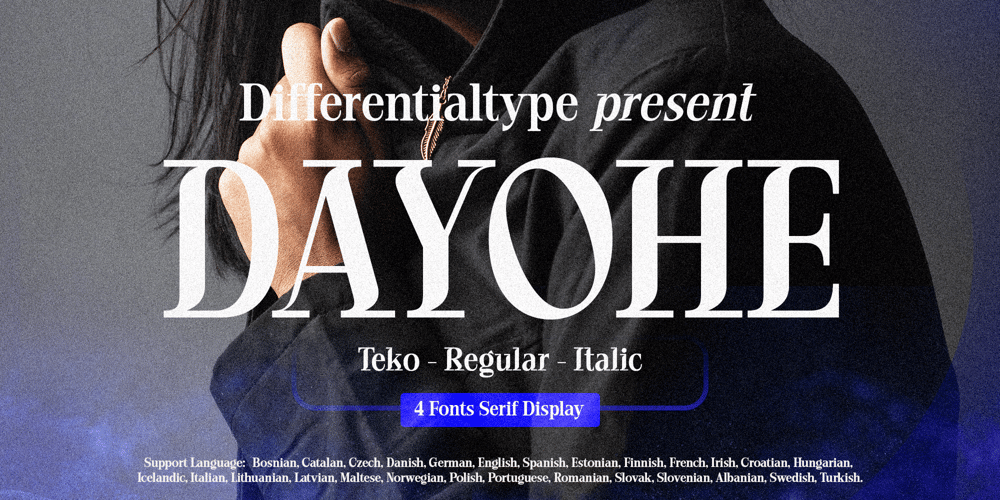
Dayohe Font Family was designed by Sidik Sidik and published by Differentialtype. Dayohe contains 4 styles and family package options. Dayohe is a serif display font that comes in four styles. It is a modern font that is perfect for display purposes. The font is designed to be elegant and fashionable, making it an excellent choice for logos and branding. It is designed to be bold and eye-catching, making it an excellent choice for grabbing the reader’s attention. Perfect for use in fashion and beauty branding, as well as other high-end products and services.